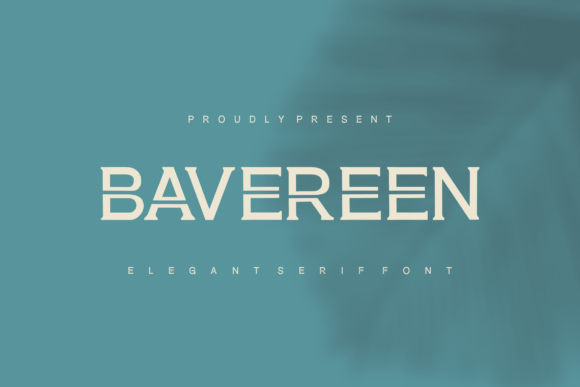
Feast your eyes upon Bavereen, the quintessential serif font that will redefine your creative horizons. Join the ranks of discerning designers who have discovered the transformative power of Bavereen, a font that transcends time with its elegance and charm.
Immerse yourself in a world of design possibilities, where Bavereen's timeless appeal adds a touch of class to logos, branding, and editorial masterpieces. Let your imagination soar as you craft compelling headlines that dance off the page, attracting eyes and captivating hearts.
Unlock your creative potential with Bavereen, the font that ignites inspiration and propels your designs to new heights of sophistication. Its meticulously crafted curves and serifs dance in perfect harmony, creating a visual symphony that elevates your work beyond the ordinary.
Step into the spotlight with Bavereen, the font that commands attention and leaves a lasting impression. Whether you seek to craft a captivating logo that exudes professionalism or design breathtaking marketing materials that resonate with your audience, Bavereen is your trusted companion.
Dare to be different, to stand out from the crowd with Bavereen, the font that embodies excellence. As a versatile chameleon, Bavereen effortlessly adapts to your creative vision, effortlessly blending with diverse design styles. Unleash your creativity and watch as your ideas take flight, reaching new heights of brilliance.
Embrace the power of Bavereen, the font that breathes life into your designs, transforming them into captivating masterpieces. Discover the joy of creating with a font that inspires, empowers, and fuels your passion. Let Bavereen be your creative muse, your guiding light in the vast realm of design.